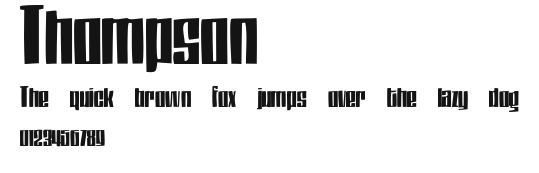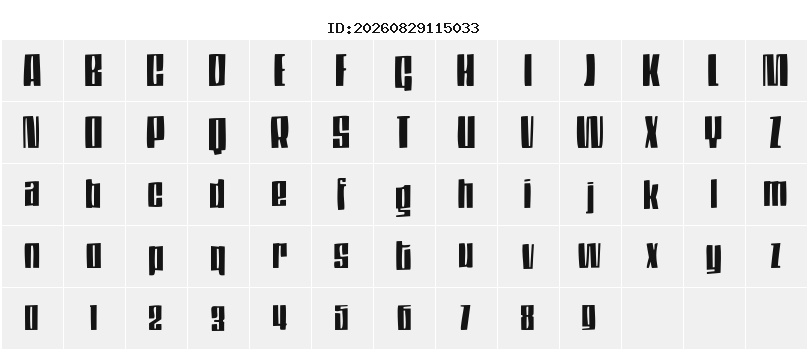
Thompson Preview
• Font Name: Thompson
• Full Font Name: Thompson
About Thompson.ttf
Thompson.ttf is a modern, elegant sans-serif font designed for ultimate readability and visual harmony. Perfect for branding, headlines, web design, and print materials.